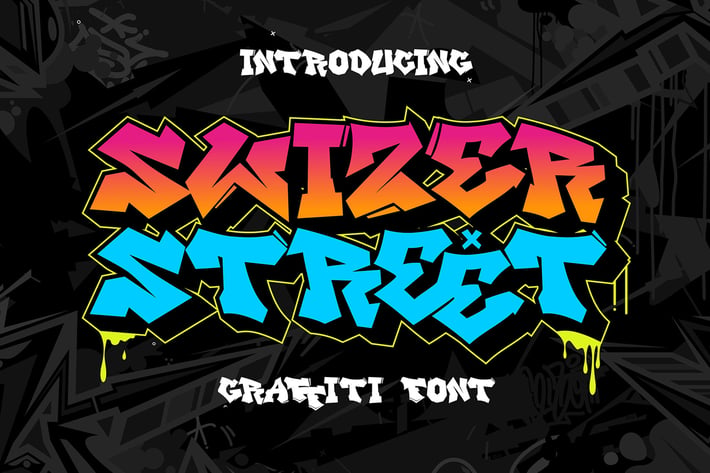
Swizer Street - Urban Graffiti Font
Introducing Swizer Street – the ultimate Urban Graffiti Font that brings the spirit of the streets to your designs. Perfectly capturing the raw energy and edgy vibe of urban art, Swizer Street is designed to make a bold and rebellious statement in any creative project.
🎨 Urban Edge: Swizer Street embodies the essence of street art with its bold, dynamic strokes and authentic graffiti style. Each letter exudes attitude and creativity, making it ideal for designs that need a raw, urban touch.
🌆 Rebellious Spirit: This font channels the rebellious energy of graffiti culture, adding a sense of defiance and boldness to your work. Perfect for branding, music posters, event flyers, and more, Swizer Street ensures your message stands out with a powerful urban aesthetic.
🖌️ Dynamic Style: The intricate design of Swizer Street combines smooth curves with sharp angles, capturing the spontaneity and creativity of graffiti art. This unique style makes it a standout choice for projects that demand a striking and memorable look.
💥 Bold Statements: Swizer Street is designed to make an impact. Its thick, commanding letterforms ensure your text captures attention and leaves a lasting impression. Use it for headlines, titles, and other prominent elements to create bold, eye-catching visuals.
🖋️ Versatile Application: Whether you're designing for print or digital media, Swizer Street adapts seamlessly to various applications. Its edgy style is perfect for a wide range of creative projects, from urban culture promotions to eye-catching advertisements.
Bring the streets to your designs with Swizer Street – the Urban Graffiti Font that combines raw energy with bold, striking visuals. Perfect for making a rebellious statement, Swizer Street is your go-to font for adding a powerful and edgy touch to any project.